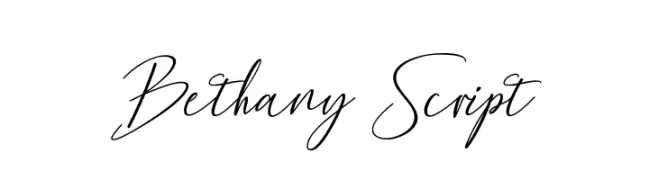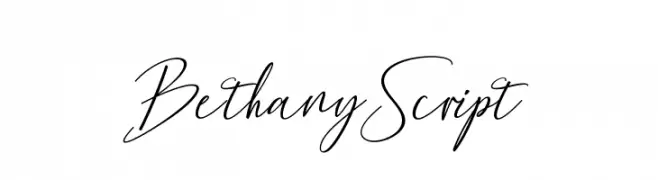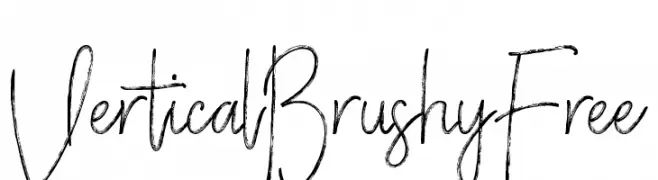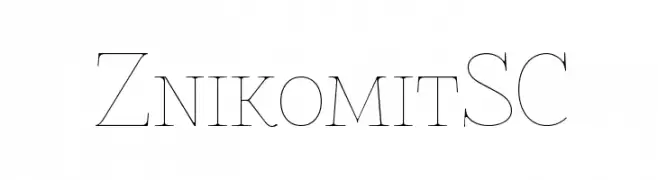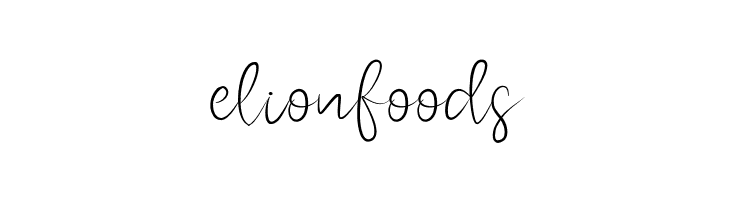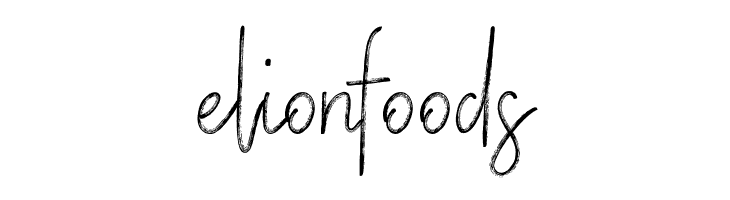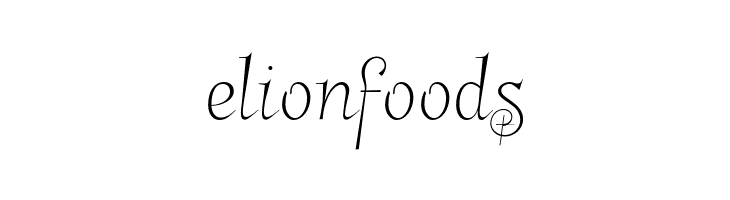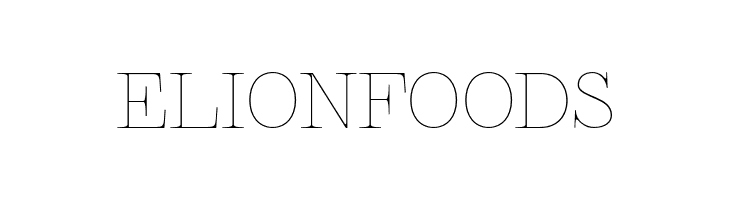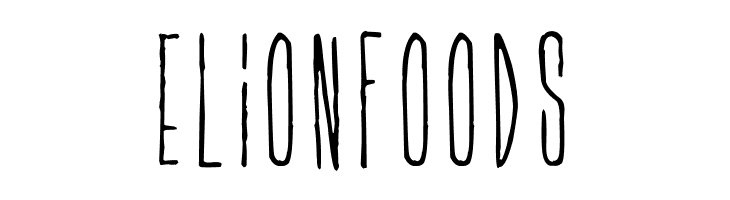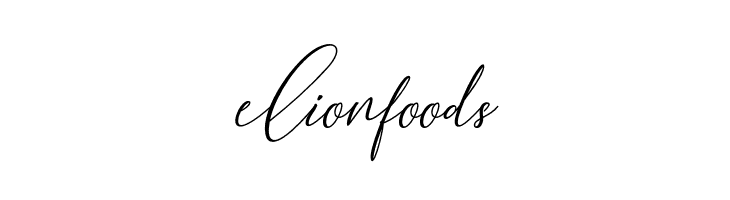
( ed creative - creativemarket.com/ed_creative )
An elegant script font with flowing, cursive characters and graceful swashes.
( fey design - Fey Design - www.creativemarket.com/feydesign )
A dynamic, brush-style font with an artistic and hand-drawn appearance.
( fontsme )
A playful, handwritten font with smooth, flowing lines and a casual style.
( fontsme )
A playful, handwritten font with a whimsical and dynamic style.
( gluk - Grzegorz l - www.glukfonts.pl )
An elegant and sophisticated font with decorative swashes and a refined appearance.
( gluk - Grzegorz l - www.glukfonts.pl )
A delicate and elegant font with thin, elongated strokes and slight contrast.
( imagex - www.imagex-fonts.com )
A tall, narrow, hand-drawn font with an artistic flair.
( mightype - creativemarket.com/mightype )
An elegant, flowing script font with a natural handwritten style.
( mightype - creativemarket.com/mightype )
An elegant, flowing script font with a sophisticated and graceful appearance.
( mightype - creativemarket.com/mightype )
A graceful and elegant script font with flowing cursive letters.